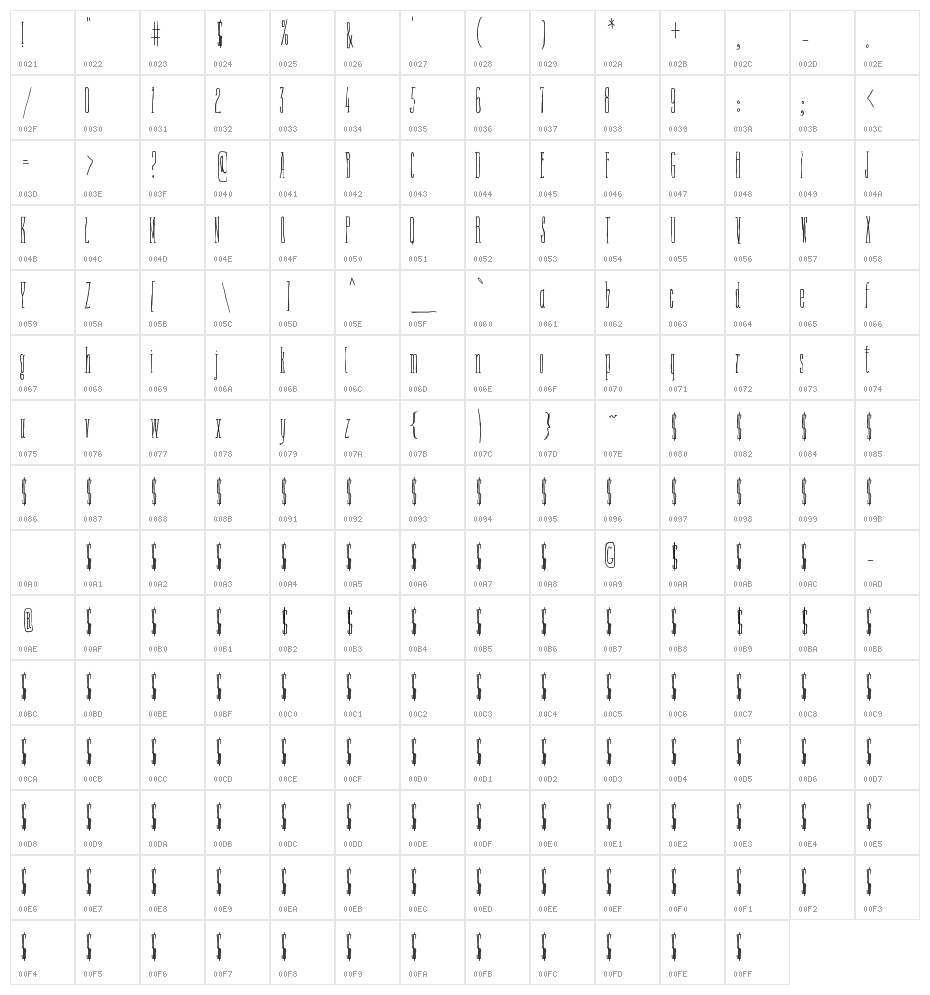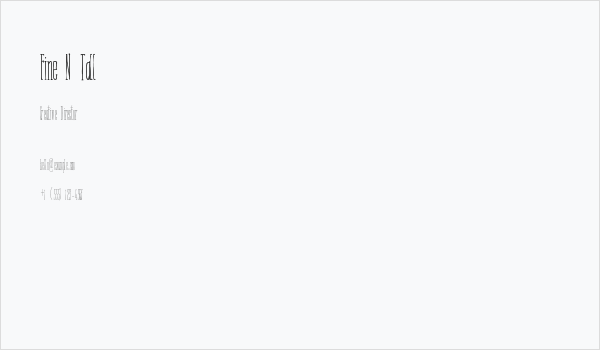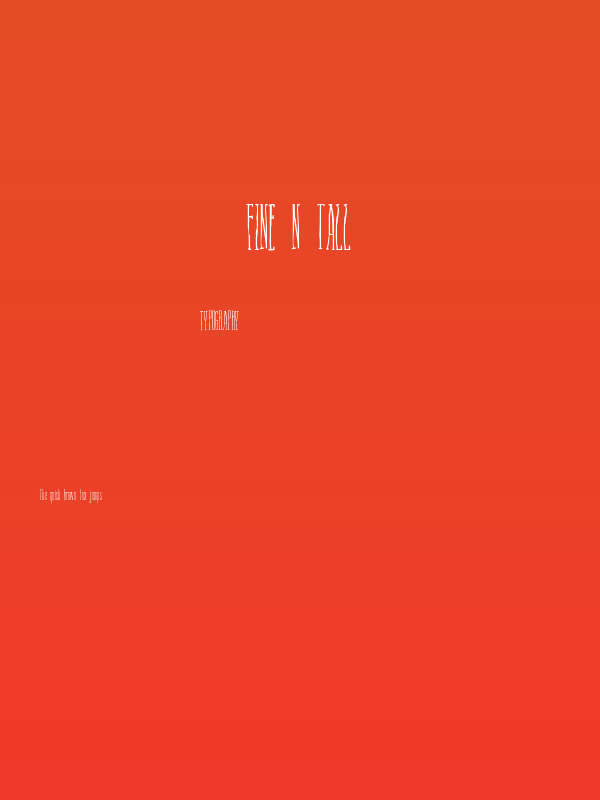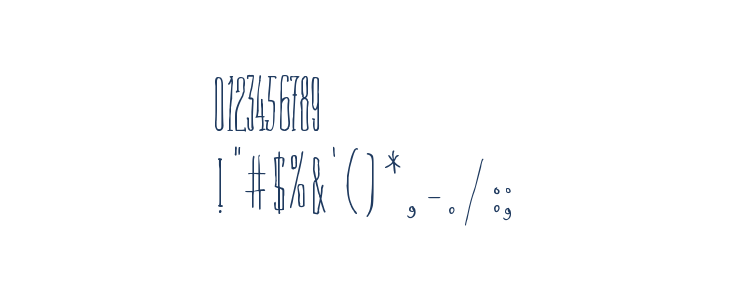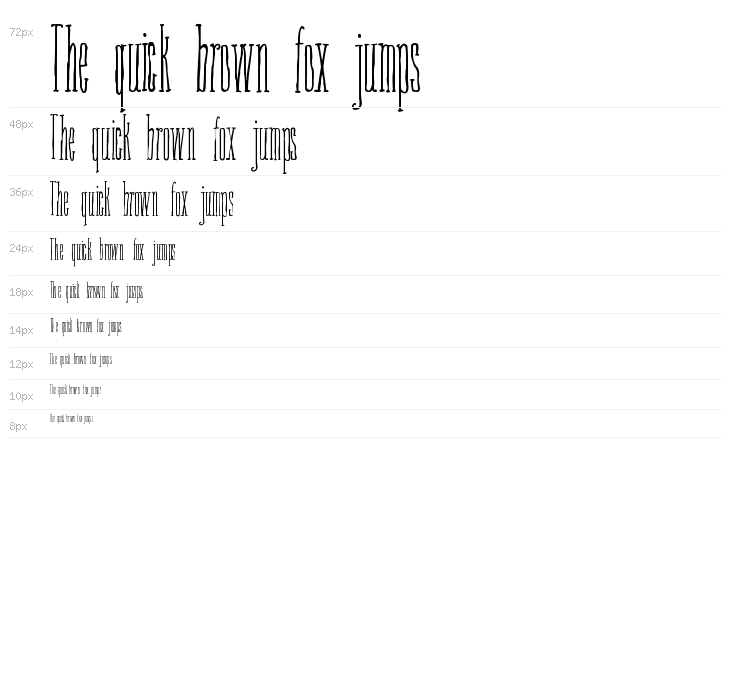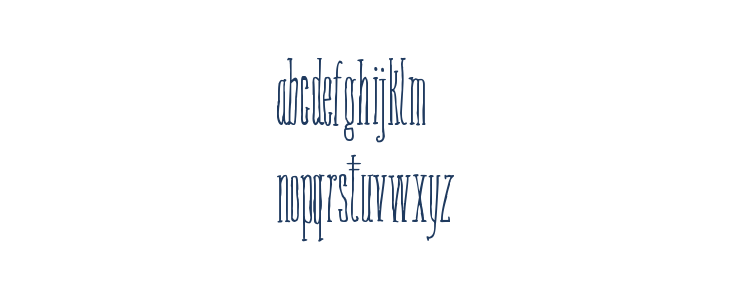
Fine N Tall Font
Fine N Tall Description
This font features an elongated and narrow design, characterized by tall, slender letters that give it a distinctive and elegant appearance. The vertical emphasis is pronounced, with each character stretching upwards, creating a sense of height and sophistication. The strokes are consistent in width, providing a uniform look across all characters. The font includes both uppercase and lowercase letters, numerals, and a variety of special characters, making it versatile for different types of text. Its unique style is both modern and slightly whimsical, making it suitable for creative projects that require a touch of elegance and flair.
FINE-N-TALL UPPERCASE
FINE-N-TALL LOWERCASE
FINE-N-TALL OTHER CHARS
| Proposed Projects | Ideal for posters, invitations, branding, and any design requiring a distinctive and elegant touch. |